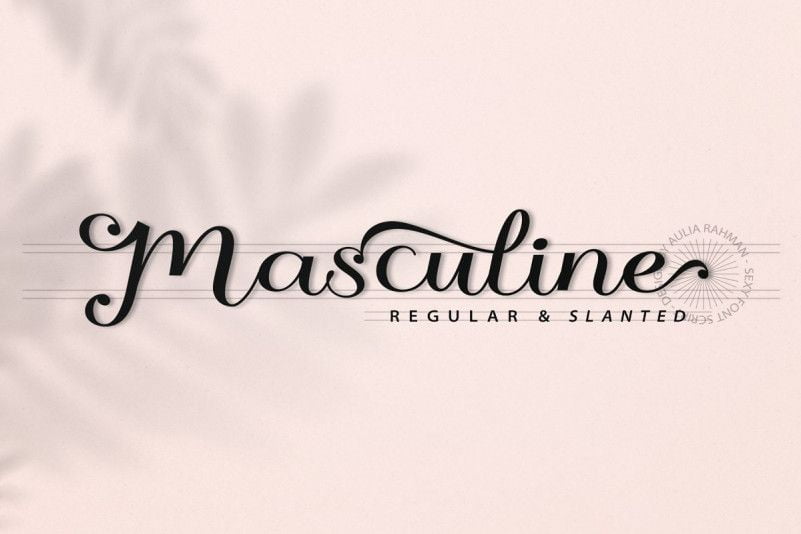
Masculine Font
Masculine Font- a new fresh & modern script with a handmade calligraphy style, decorative characters and a dancing baseline! So beautiful on invitation like greeting cards, branding materials, business cards, quotes, posters, and more!
Masculine Font come with 305 glyphs totaly. The alternative characters were divided into several Open Type features such as Swash, Stylistic Sets, Stylistic Alternates, Contextual Alternates, and Ligature.